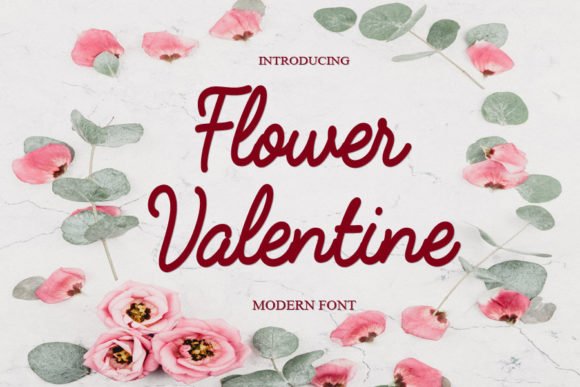
The Perfect Handwritten Touch: Introducing Flower Valentine Font
There’s something magical about designing a wedding invitation or a heartfelt thank you card – the moment when all the pieces come together, and you know you’ve created something truly special. It’s in these moments that a beautiful font like Flower Valentine comes into play, elevating the design from ordinary to extraordinary. This delicate and chic script font is perfect for adding a handwritten touch to any project.
Whether you’re a professional designer or a DIY enthusiast, Flower Valentine Font is an invaluable addition to your toolkit. Its versatility makes it suitable for a wide range of applications, from wedding invitations and greeting cards to logos and business cards. With Flower Valentine Font, you can add a touch of elegance and sophistication to any design, making it a valuable asset for any creative project.
Key Features of Flower Valentine Font
- Font Family: A beautiful, elegant script font designed to convey love and romance.
- Unique Characteristics: The font features intricate, hand-drawn strokes and subtle flourishes that give it a unique, handwritten feel.
Flower Valentine Font Review
I’ve had the chance to work with the Flower Valentine Font, and I must say it’s a unique and eye-catching font. ✨ One of its standout features is its whimsical and romantic vibe, making it perfect for Valentine’s Day-themed designs or anything that requires a touch of love and warmth. ✨ The font’s intricate details and floral patterns add a level of sophistication, elevating any design it’s used in.
However, there are some limitations to consider. ⚠️ Firstly, the font’s complexity may make it difficult to use for certain designs, especially those that require a more straightforward and clean look. ⚠️ Additionally, the font’s size may become overwhelming if used in larger text, which could negatively impact readability.
Here are some pros and cons to consider:
- Unique and romantic vibe
- Intricate details and floral patterns
- Perfect for Valentine’s Day-themed designs
- May be difficult to use for certain designs
- Font size may become overwhelming
- May negatively impact readability in larger text
Overall, the Flower Valentine Font is a great choice for designers looking to add a touch of romance and whimsy to their designs. While it may have some limitations, its unique features and beauty make it a valuable addition to any font collection.
Getting the Most Out of the Flower Valentine Font
To get the most out of the Flower Valentine Font, try using it in combination with other floral elements, such as illustrations or graphics.
Experiment with different font sizes and styles to create a visually appealing design.
Use the font in titles or headings to add a touch of whimsy and romance to your design.
The Flower Valentine Font is perfect for:
Valentine’s Day cards and gifts
Floral-themed designs and illustrations
Romantic and whimsical designs
Pacifico is a beautiful, elegant script font that is perfect for adding a touch of sophistication to your designs. It’s ideal for use in wedding invitations, greeting cards, and other romantic designs. Pacifico is more formal and elegant compared to Flower Valentine Font, making it suitable for high-end designs.
Great Vibes is a stylish, cursive script font that is great for adding a playful touch to your designs. It’s perfect for use in social media graphics, advertisements, and other designs that require a fun and energetic vibe. Great Vibes is more casual and playful compared to Flower Valentine Font, making it suitable for younger audiences.